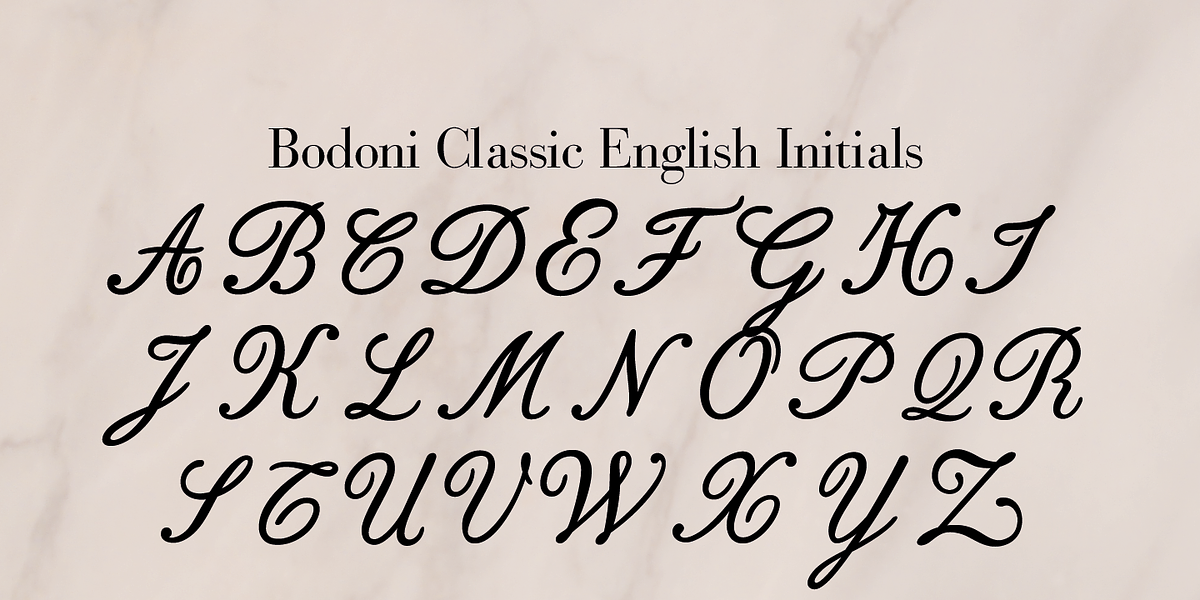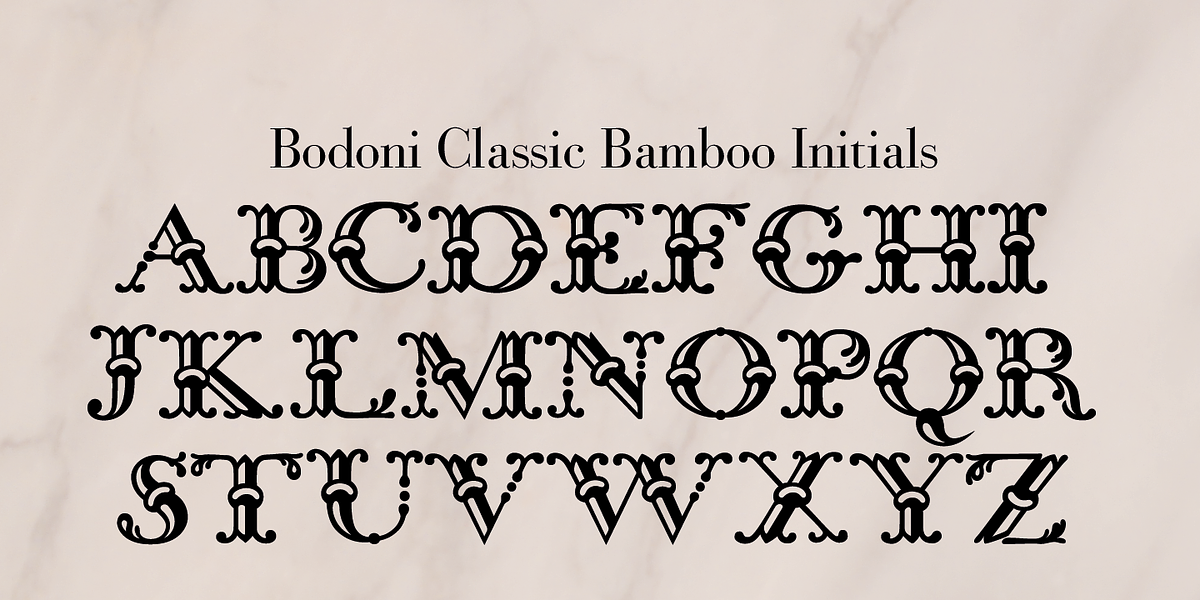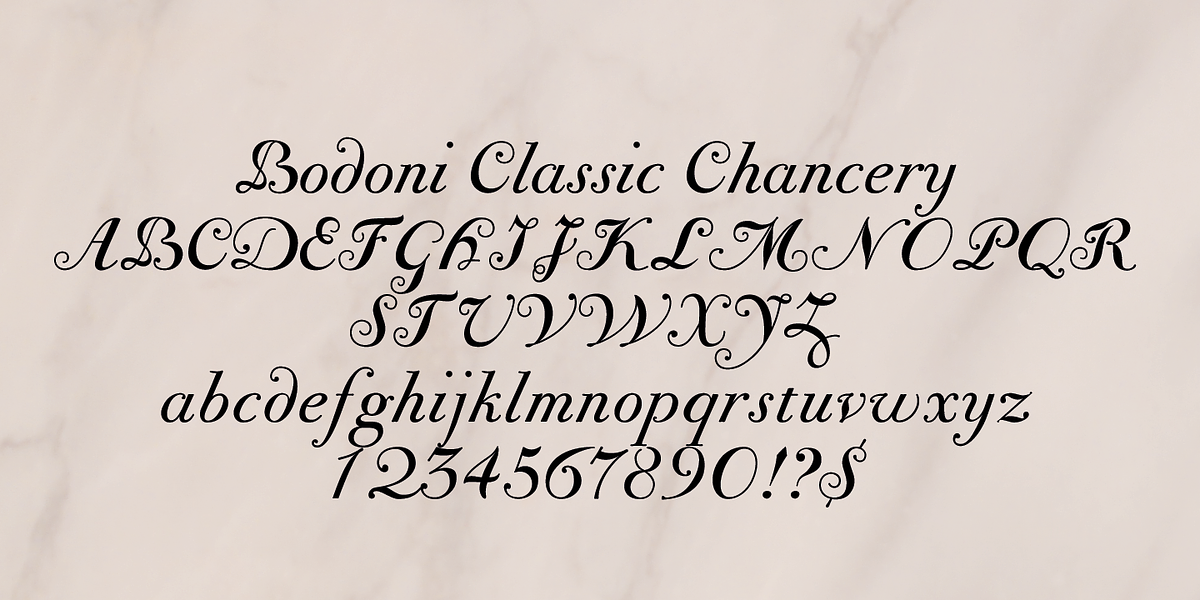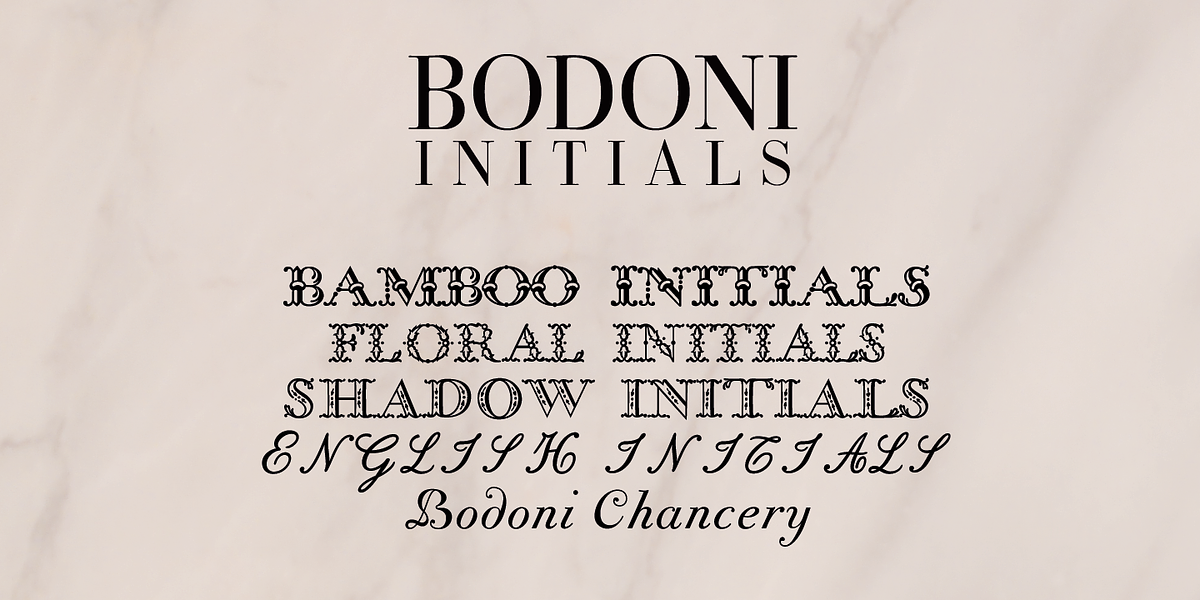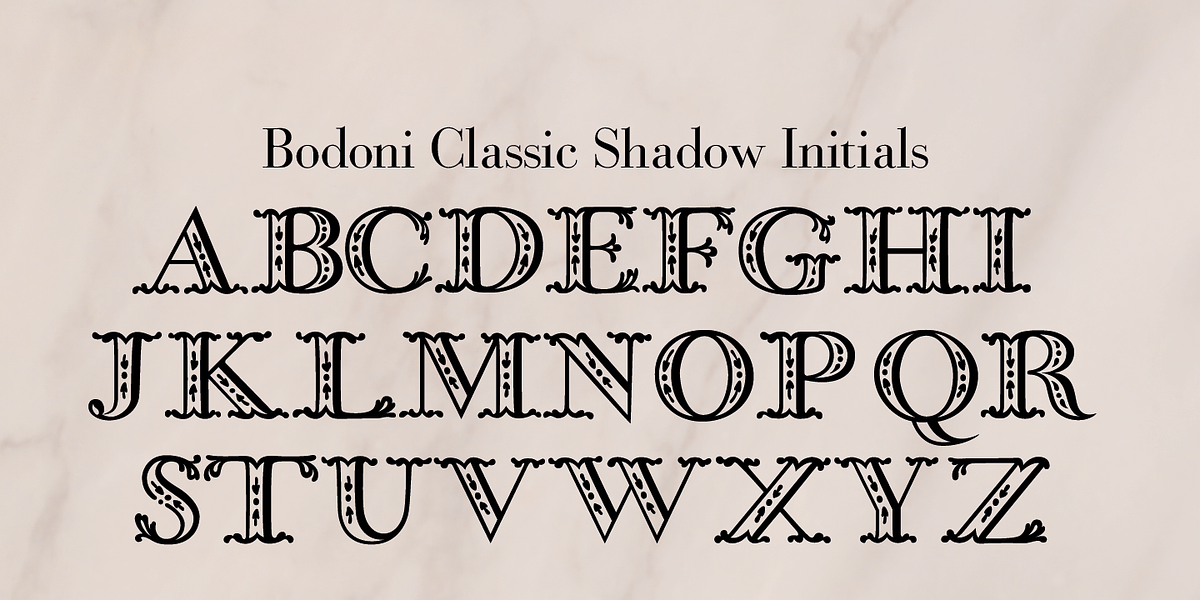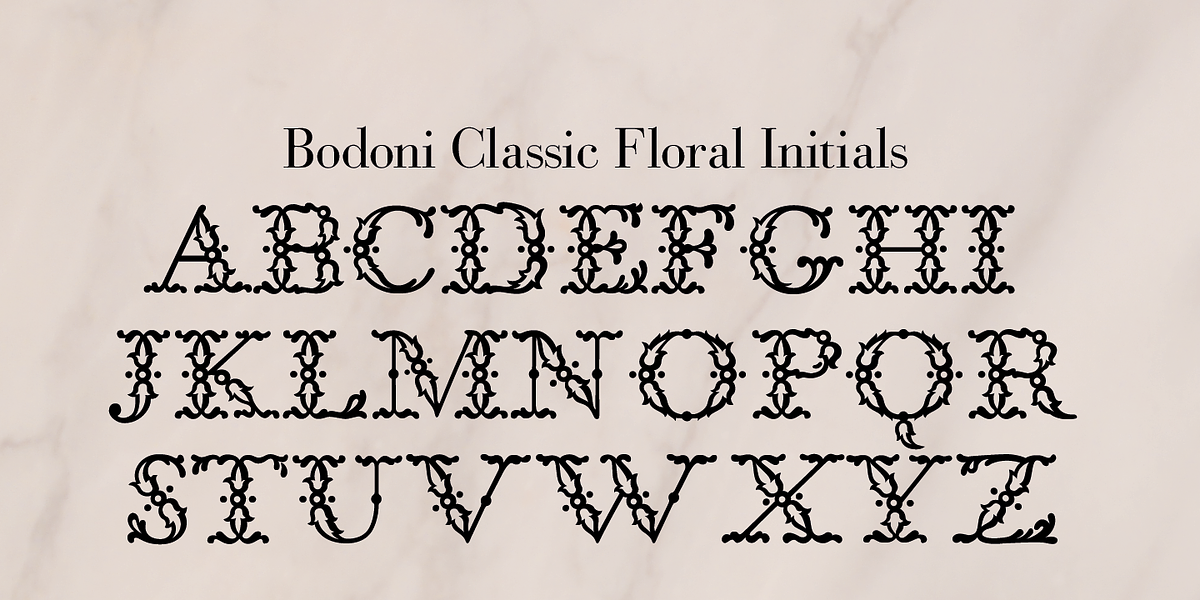
Bodoni Classic Initials
Bodoni Classic is a formal script typeface inspired by the historical Bodoni typeface. It features squared-off serifs characteristic of Wiescher's redesign, and includes ornamental elements and shadowed effects.